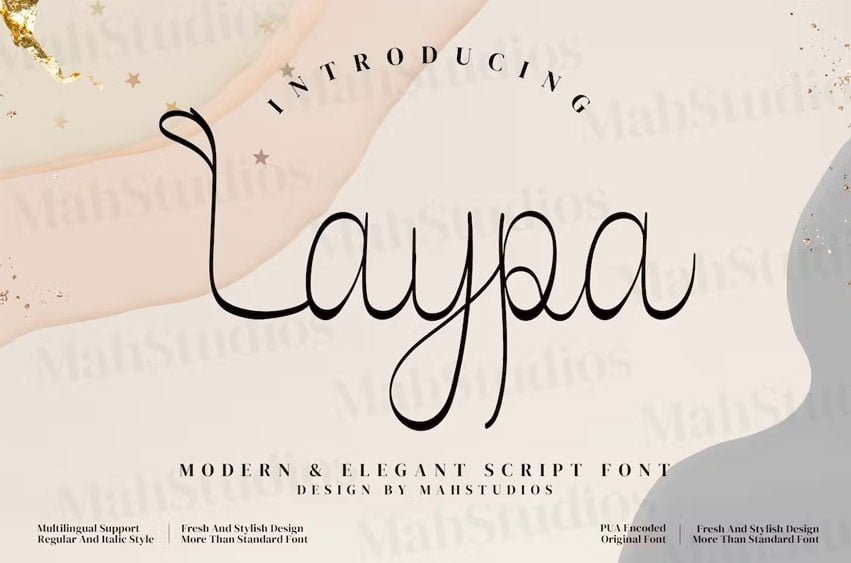
Laypa Font Modern Elegant Script Font, from MAH Studios, is a premium Script Font, perfect for any project requiring a distinctive, premium feel.
Ligature, Alternate & Multilingu
Fonts include support for 65 languages